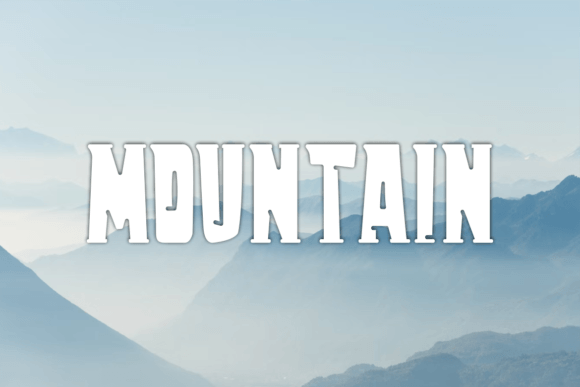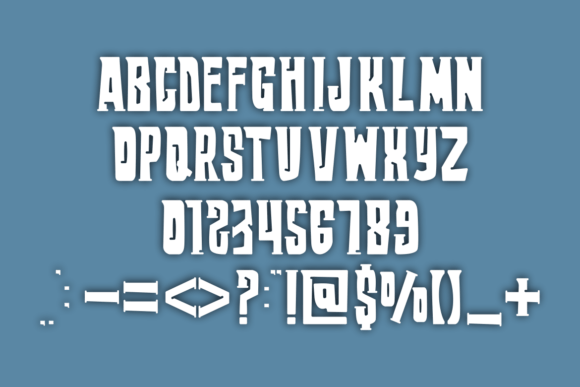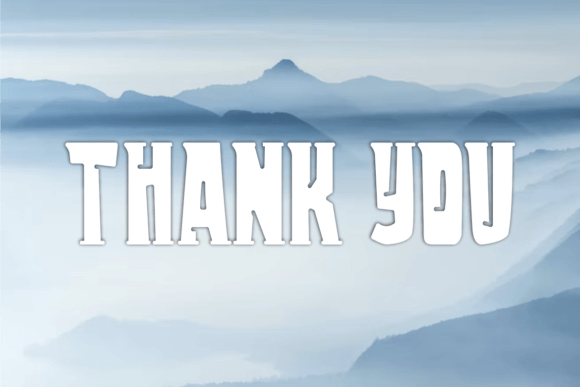
Introduction to Kliklims Font
Remember the moment when you’re working on a creative project and you stumble upon the perfect design element? It’s like a missing piece of a puzzle finally falling into place, and everything else starts to come together seamlessly. For designers, finding that perfect font can be a game-changer, elevating the entire aesthetic of a project and making it truly stand out. One such font that has been making waves in the design community is the Kliklims Font – a unique serif font that exudes elegance, sophistication, and modernity.
With its high-quality design and versatile appeal, the Kliklims Font is an excellent resource for designers looking to add a touch of class to their projects. Whether you’re working on a signature, stationery, logo, or website header, this font is sure to impress. Plus, its transparent background feature makes it easy to work with, allowing for seamless integration into any design. And the best part? It’s available for free download, making it an invaluable addition to any designer’s toolkit.
Key Features of Kliklims Font
- High-quality, free design resource suitable for creative projects
- Unique and versatile font style with a transparent background, ideal for backgrounds and overlays
- Resolution-independent design, suitable for use at any size or resolution
- Supports a wide range of languages and characters, making it a valuable resource for international creative projects
- Perfect for use in digital design, including web design, graphic design, and print design
Honest Review: Kliklims Font
As a designer, I’m always on the lookout for high-quality design resources that can elevate my creative projects. Recently, I came across the Kliklims Font, and I must say it’s a gem worth sharing.
- ✨ Unique and modern design: The Kliklims Font has a fresh, modern feel that’s perfect for contemporary design projects.
- ✨ High-quality glyphs: The font includes a wide range of glyphs, including numbers, symbols, and punctuation marks, making it a versatile choice for designers.
- ✨ Transparent background: The font’s transparent background allows for seamless integration with images and other design elements.
- ⚠️ Limited font sizes: While the font is available in multiple weights, the number of font sizes is somewhat limited, which may not be ideal for designers working on complex layouts.
- ⚠️ Not suitable for small text: The font’s bold lines and intricate details may not be suitable for small text sizes, which could make it difficult to read.
Overall, I’m impressed with the Kliklims Font’s modern design and high-quality glyphs. While it may have some limitations, it’s a valuable addition to any designer’s toolkit. With a free download available, it’s definitely worth checking out for your next creative project.
The Kliklims Font is suitable for a wide range of creative projects, including logos, brochures, business cards, and website design. Its high-quality design makes it a popular choice among designers and artists.